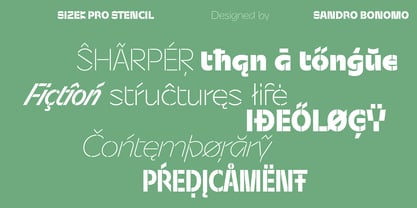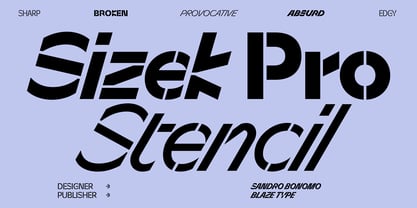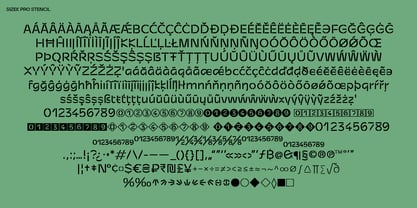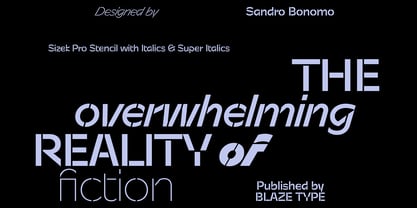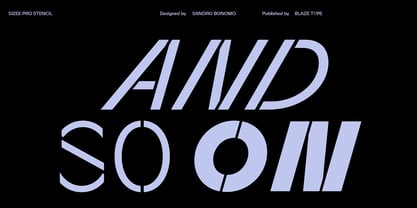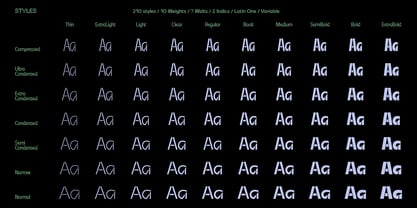
Sizek Pro Stencil
von Blaze Type
Die Schriftfamilie Sizek Pro Stencil wurde von Sandro Bonomo entworfen und von Blaze Type veröffentlicht. Sizek Pro Stencil enthält 206 Stile und Familienpaketoptionen. Mehr über diese Familie
Sizek Pro Stencil is an experimental display typeface that reimagines and deconstructs the classical calligraphic structure of letters. It takes inspiration from the digital age's glitches, lags, and damaged or half-loaded files, while channeling the raw physicality of stencil craft spray-painted surfaces, industrial markings, and urban environments. This stencil variant offers greater versatility across typographic applications while amplifying the disruptive, street-hardened character of the original. Sizek Pro Stencil presents a fractured, brutal, and confrontational aesthetic, pushed to its extreme in the more condensed forms. Letters are disrupted by intentional breaks, bridges, and cutouts — the structural necessity of stencil design transformed into a defining visual tension. These interrupted forms reinforce a sense of urgency and unease, evoking both the chaos of the digital world and the unfiltered energy of street culture, where type is torn, sprayed, and reclaimed from the surfaces it marks.
Designer: Sandro Bonomo
Foundry: Blaze Type